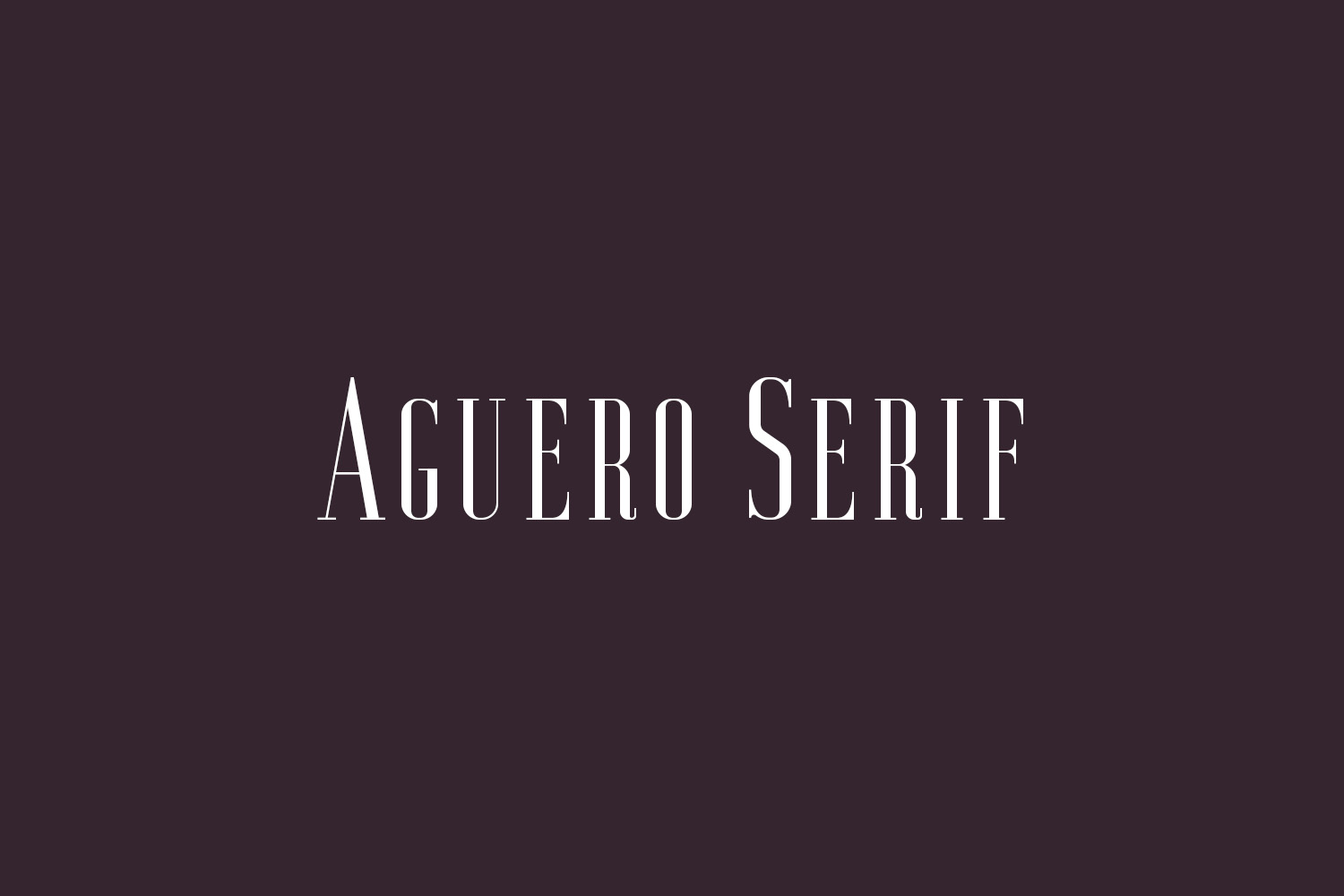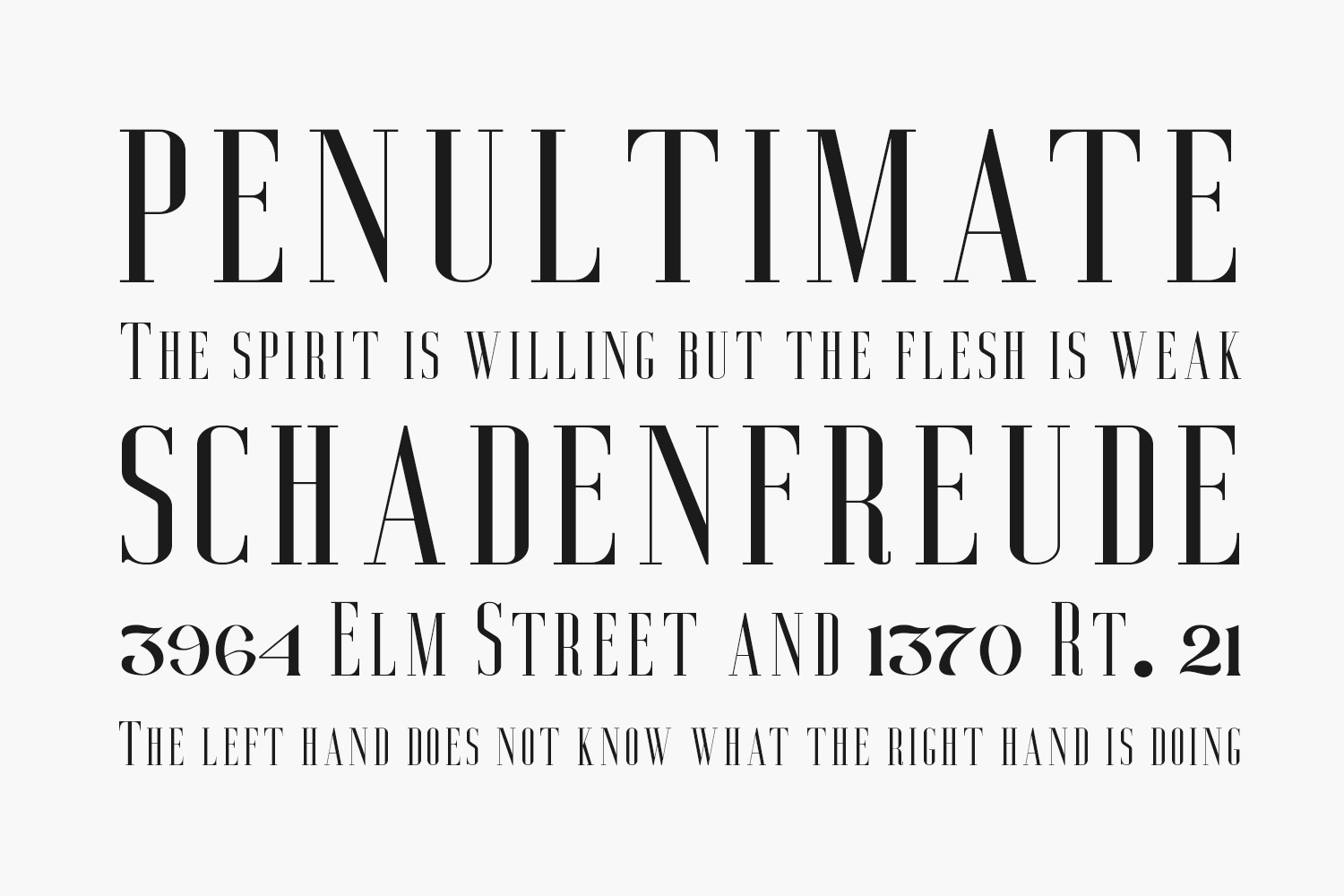
Aguero Serif Free Font Family is a clean and elegant serif font that comes in two variations; regular and italic. Its design refers to the style of transitional serifs. The distinctive features of the Aguero are the relatively low contrast of strokes, the slightly squarish shapes of round characters, and the emphasized businesslike nature. Aguero Serif Free Font Family was designed by Craft Supply Co is a demo and free for personal use only. Please purchase the full version for commercial use.
Designed by Craft Supply Co